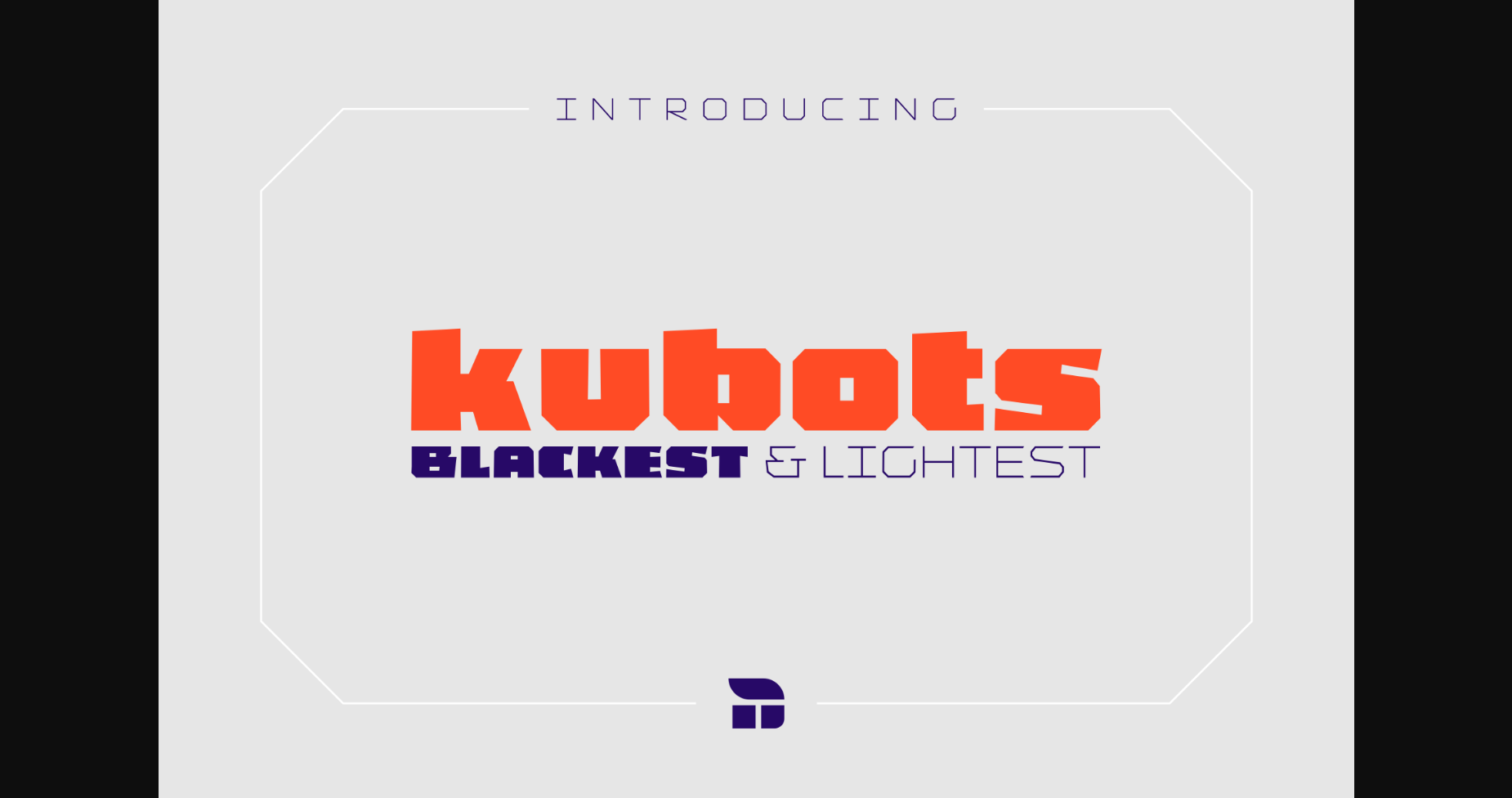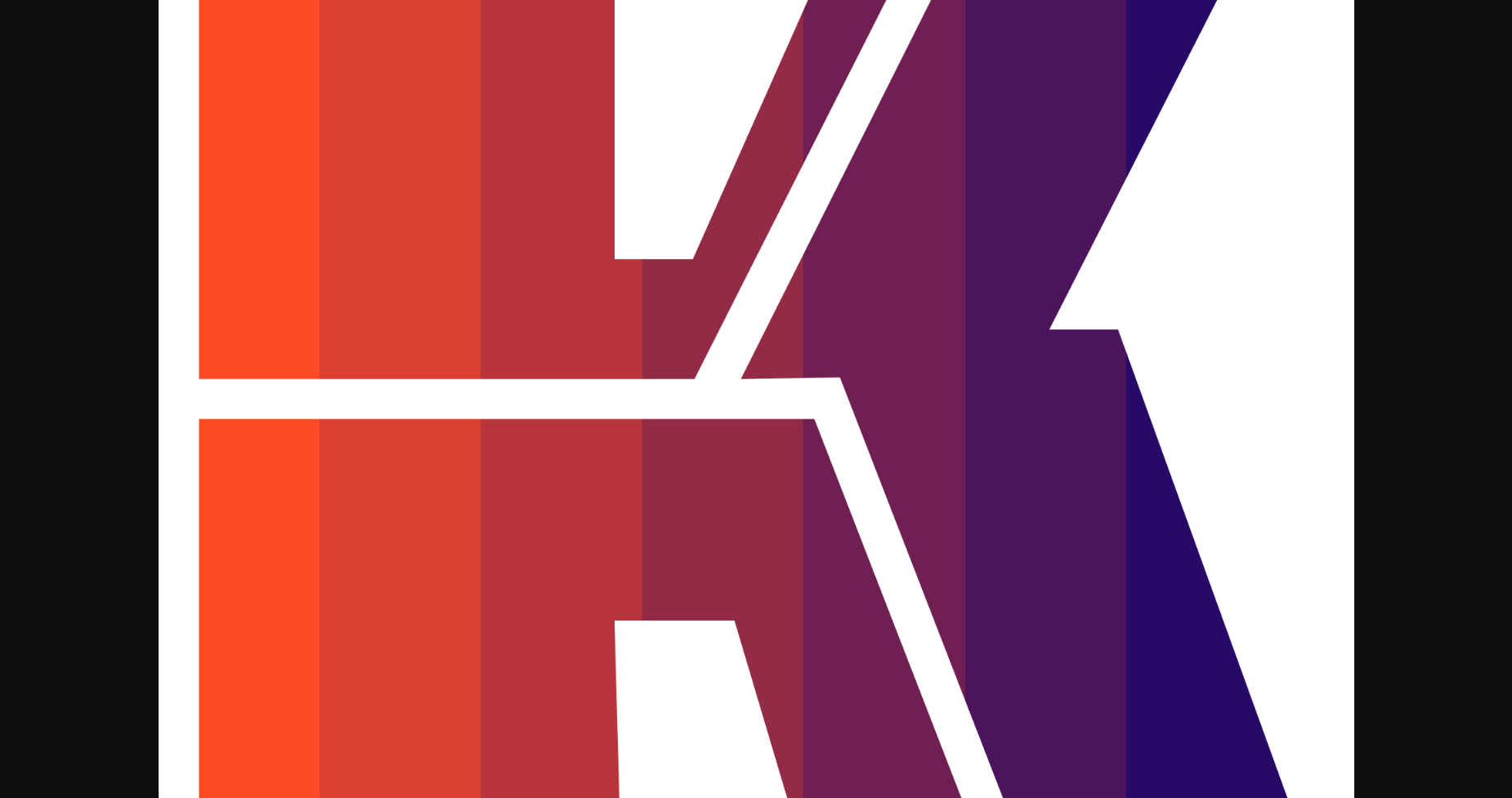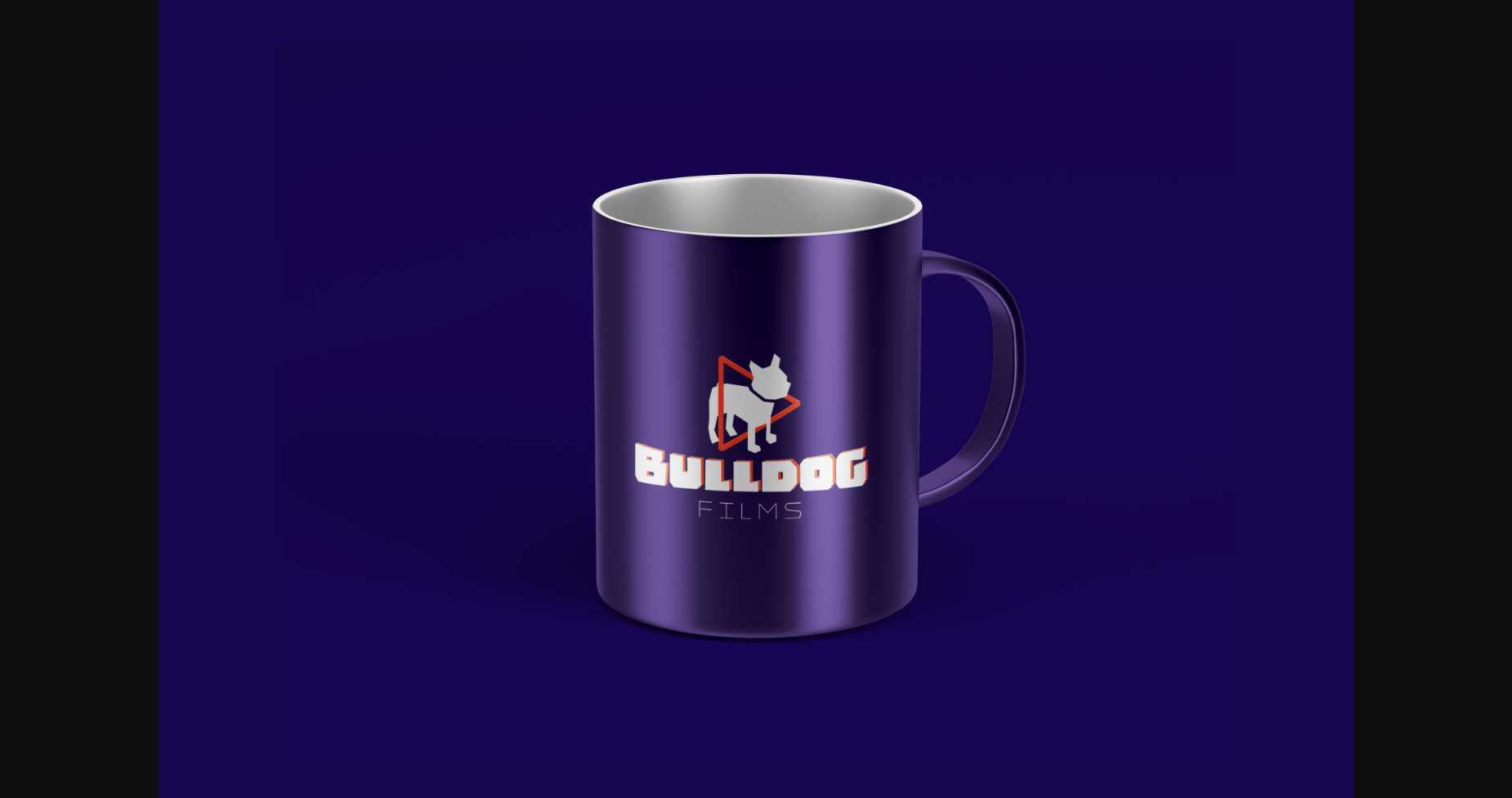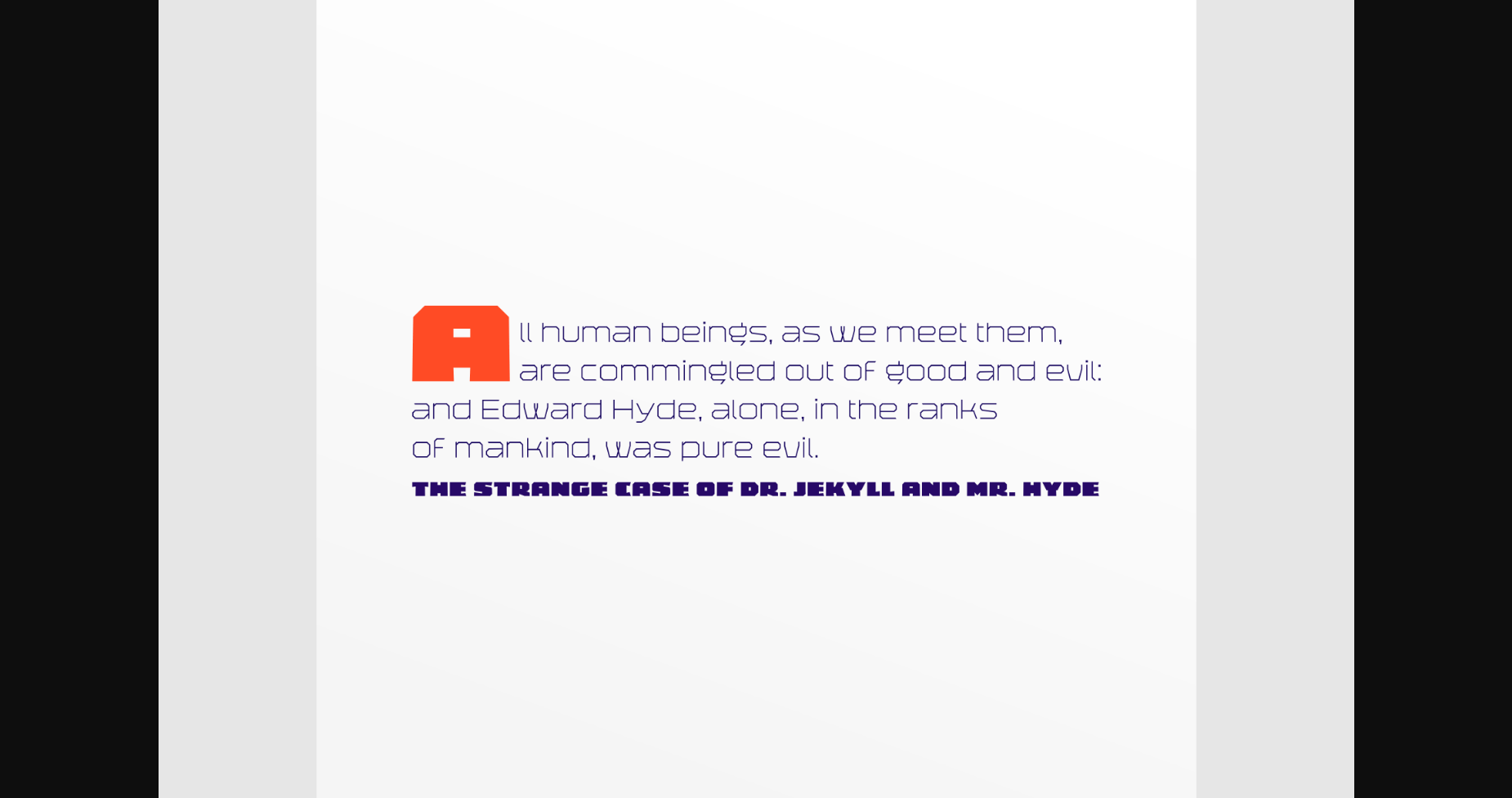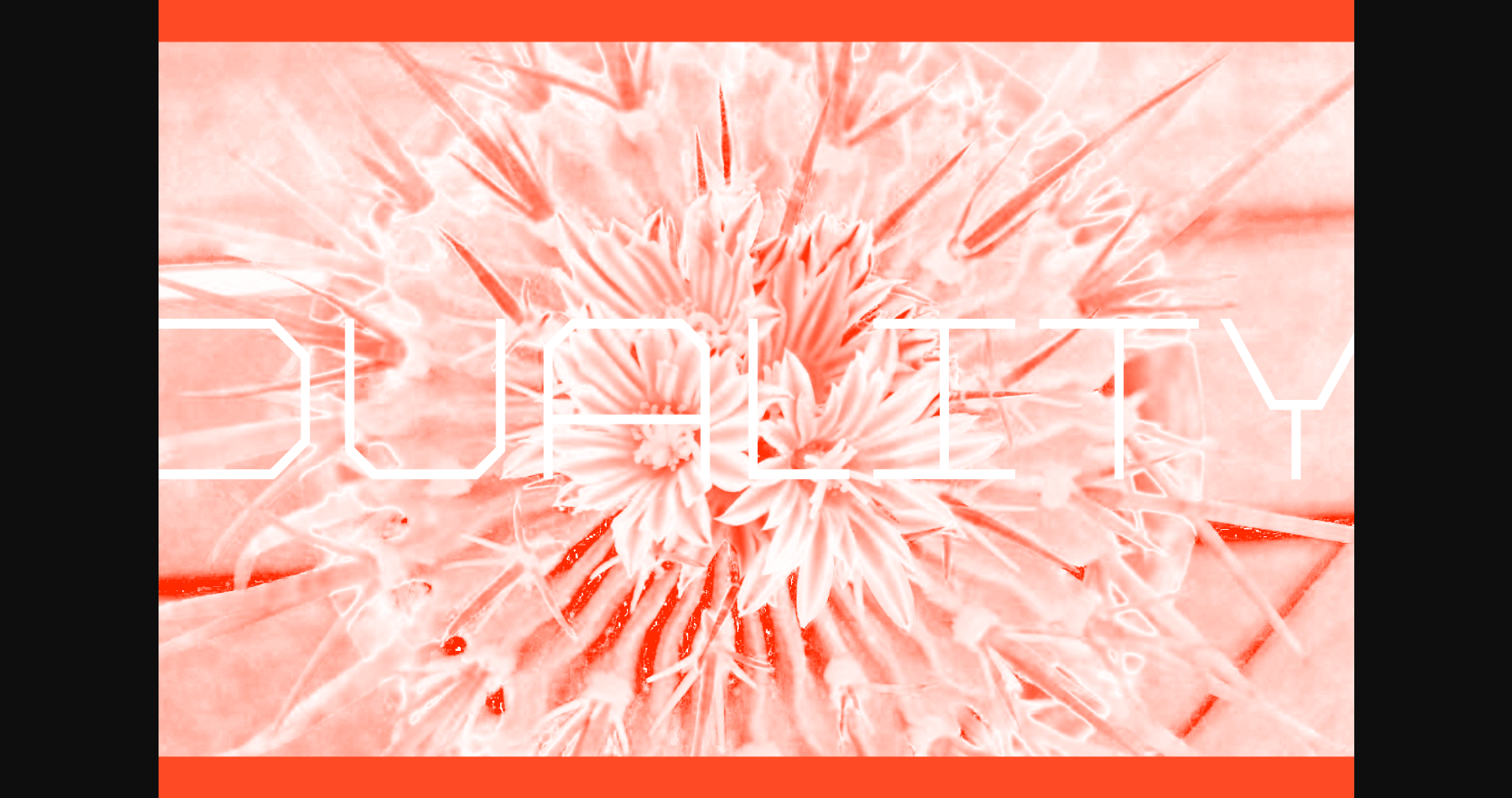
About Kubots Font
Kubots is an experimental sans serif that features no curves but generates interesting forms and contrast on print and screen. It works well as a web font and can be easily paired with large x-height fonts, to give uniqueness and personality to your project.